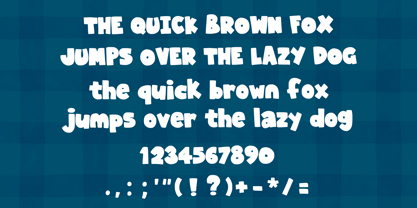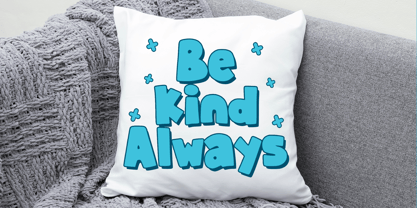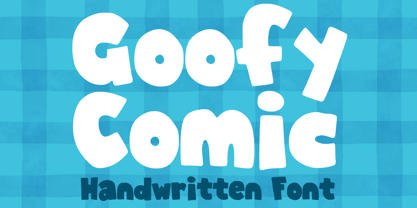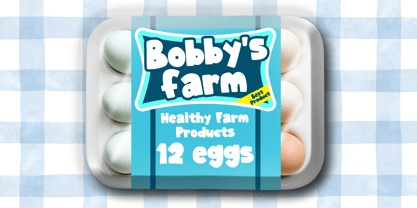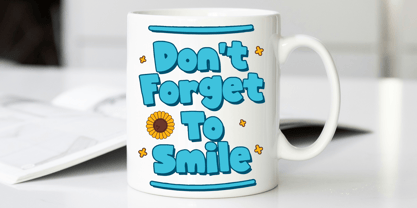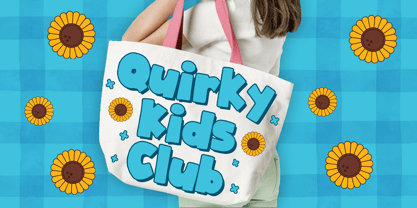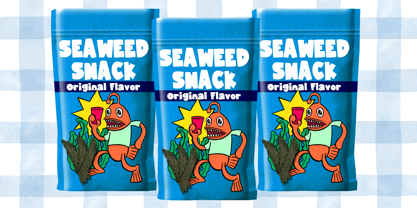
Goofy Comic
by Mvmet
The Goofy Comic Font Family was designed by Gabriel Valentinus and published by Mvmet. Goofy Comic contains 1 styles. More about this family
Unveiling Goofy Comic - a daringly delightful display typeface that elevates your artwork with ease. Its cheerful and vibrant personality transforms ordinary designs into visually stunning showpieces. Whether you're enhancing stickers, creating eye-catching t-shirts, designing a unique logo, or crafting a remarkable book or magazine cover, Goofy Comic energizes every creative endeavor. From comic books and animated illustrations to everyday text, this font adds an enchanting flair to all your design projects. Experience the extraordinary style that Goofy Comic brings to every creation!
Designers: Gabriel Valentinus
Foundry: Mvmet